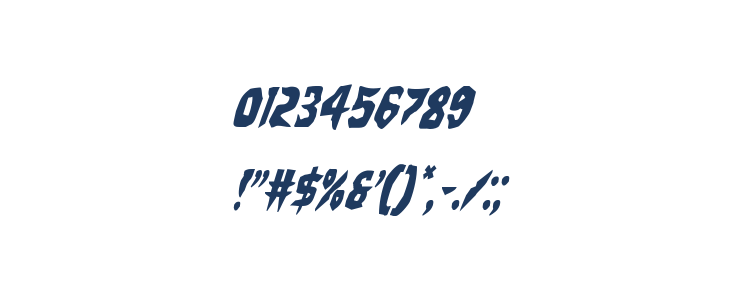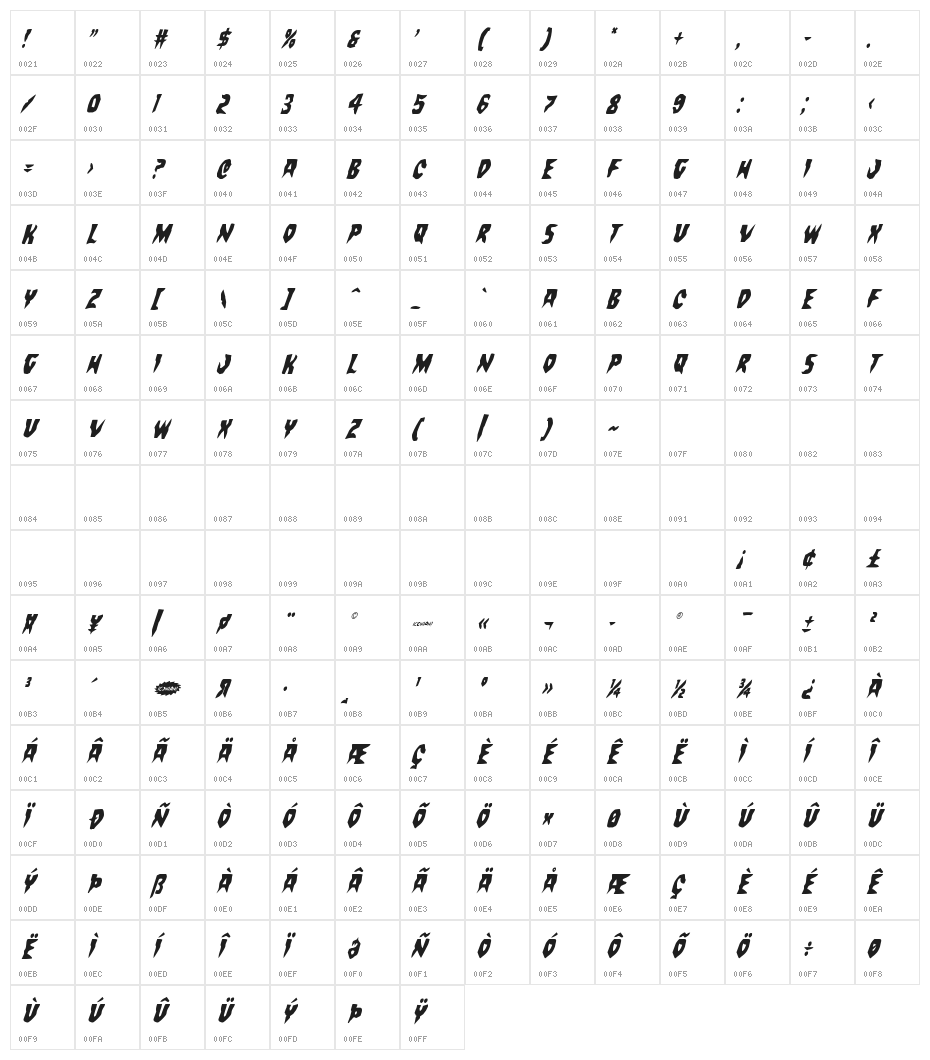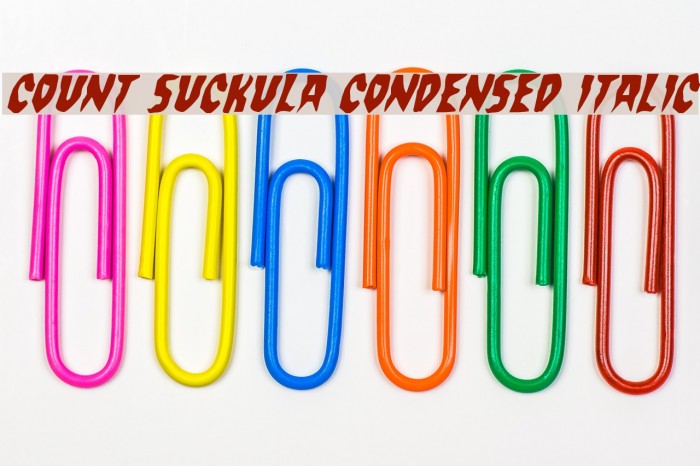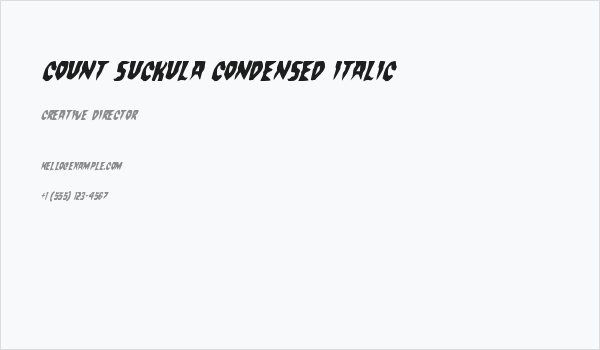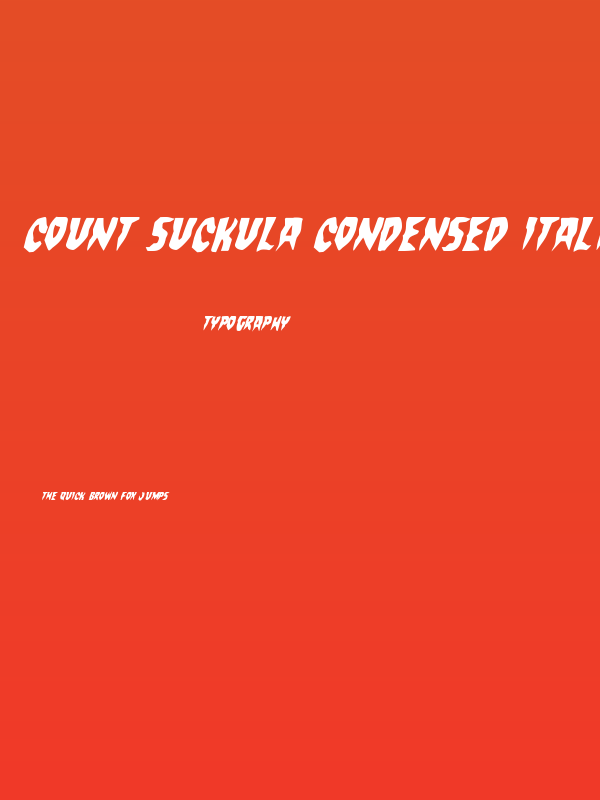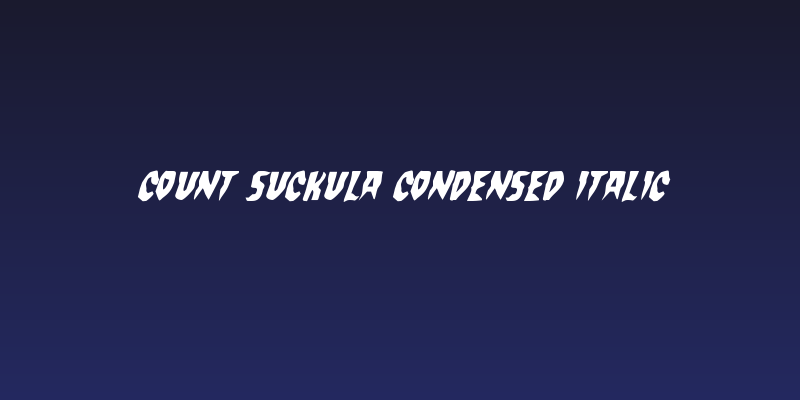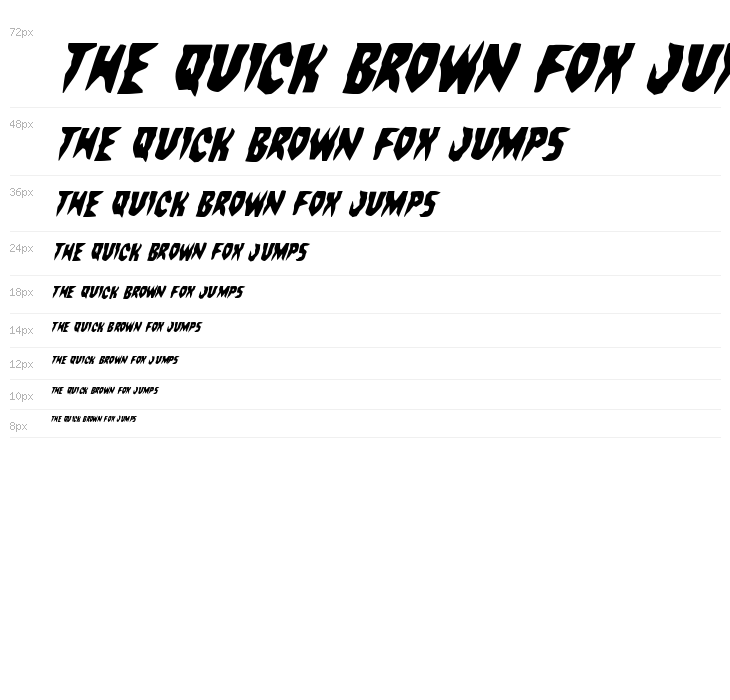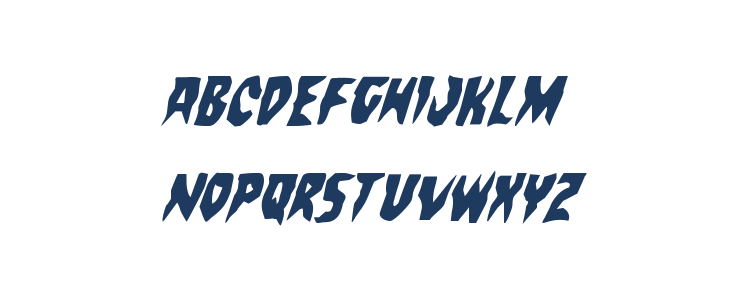
Count Suckula Condensed Italic Font
Count Suckula Condensed Italic Description
This font features a bold and dynamic style with sharp, jagged edges that give it a dramatic and intense appearance. The letters are condensed and italicized, creating a sense of movement and urgency. The uppercase and lowercase characters maintain a consistent design, with exaggerated angles and pointed ends that contribute to its striking look. The numerals and special characters follow the same aesthetic, ensuring a cohesive visual experience. This font is ideal for projects that require a bold statement or a touch of the unconventional.
| Proposed Projects | Perfect for horror-themed posters, edgy branding, Halloween invitations, or any design needing a bold, unconventional typeface. |